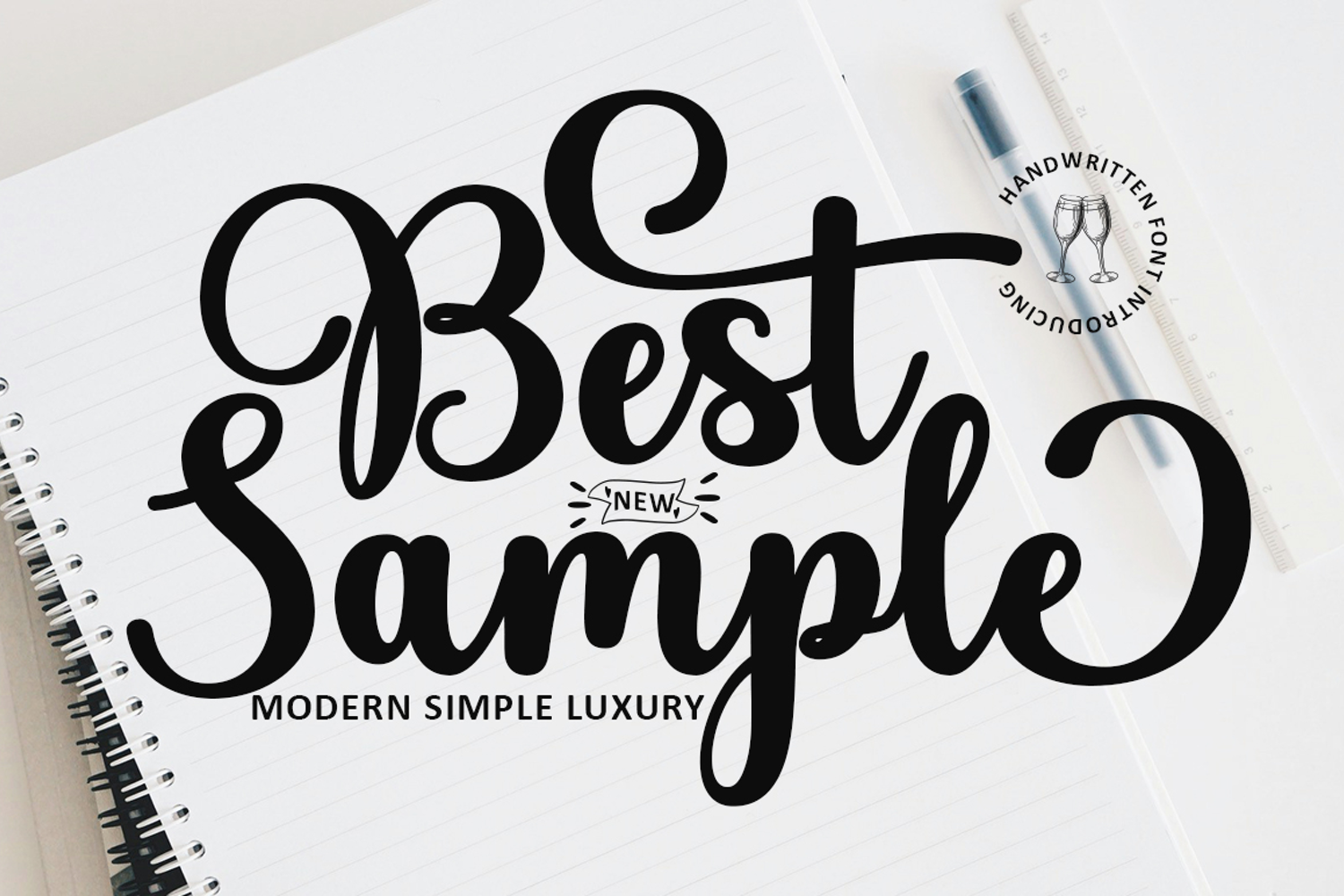
Best Sample
Best Sample is a fun/retro handwritten font.
Best Sample blends timeless sophistication with contemporary versatility. Each style is meticulously crafted for stunning visuals, featuring graceful letterforms, subtle ligatures, and stylized alternates for ultimate design flexibility.
Perfect for everything from luxury brands and fashion labels to editorial layouts, packaging, restaurant menus, and event invitations, Black Sticky effortlessly elevates any design with a luxurious and elegant feel.